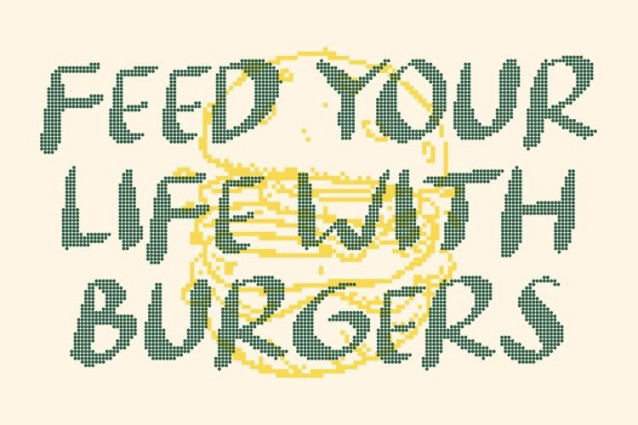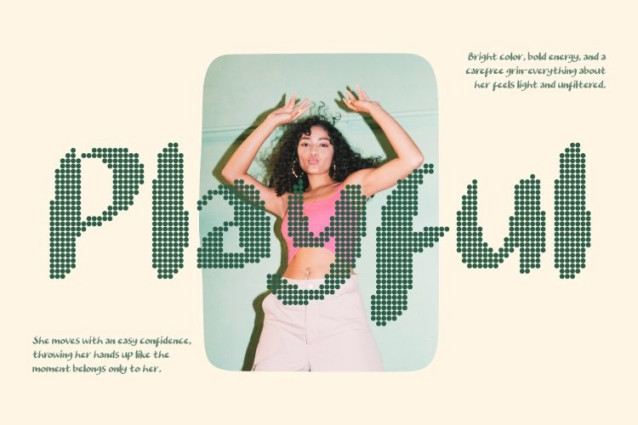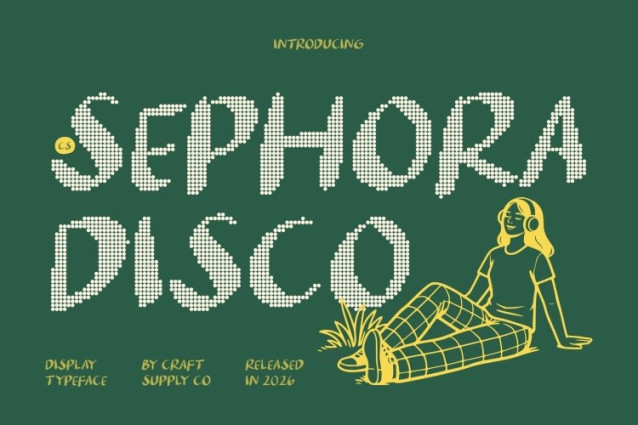
CS Sephora Disco Font
CS Sephora Disco Font – This transforms the bold handwritten marker style into a lively dotted display font. Each stroke is recreated using expressive dots, preserving the spontaneous rhythm and handcrafted feel while adding a sparkling disco-inspired texture. The result is typography that feels energetic, fun, and visually engaging.
Bold, Friendly, and Full of Personality
The dotted construction softens the bold marker strokes, creating a playful balance between strength and friendliness. This combination makes the font feel approachable yet confident perfect for designs that need to stand out while remaining warm and inviting.
Textured Look for Cheerful Visual Impact
The dot texture gives every letter a vibrant, festive quality reminiscent of lights on a dance floor. This cheerful effect enhances posters, social media graphics, branding, and packaging, helping text feel dynamic, youthful, and full of movement.
Perfect for Expressive Modern Projects
From bold headlines and creative branding to fun promotional graphics, this font brings a fresh burst of energy to any layout. Its mix of marker-style expression and dotted sparkle makes it a perfect choice for designs that want to feel modern, lively, and full of joy.